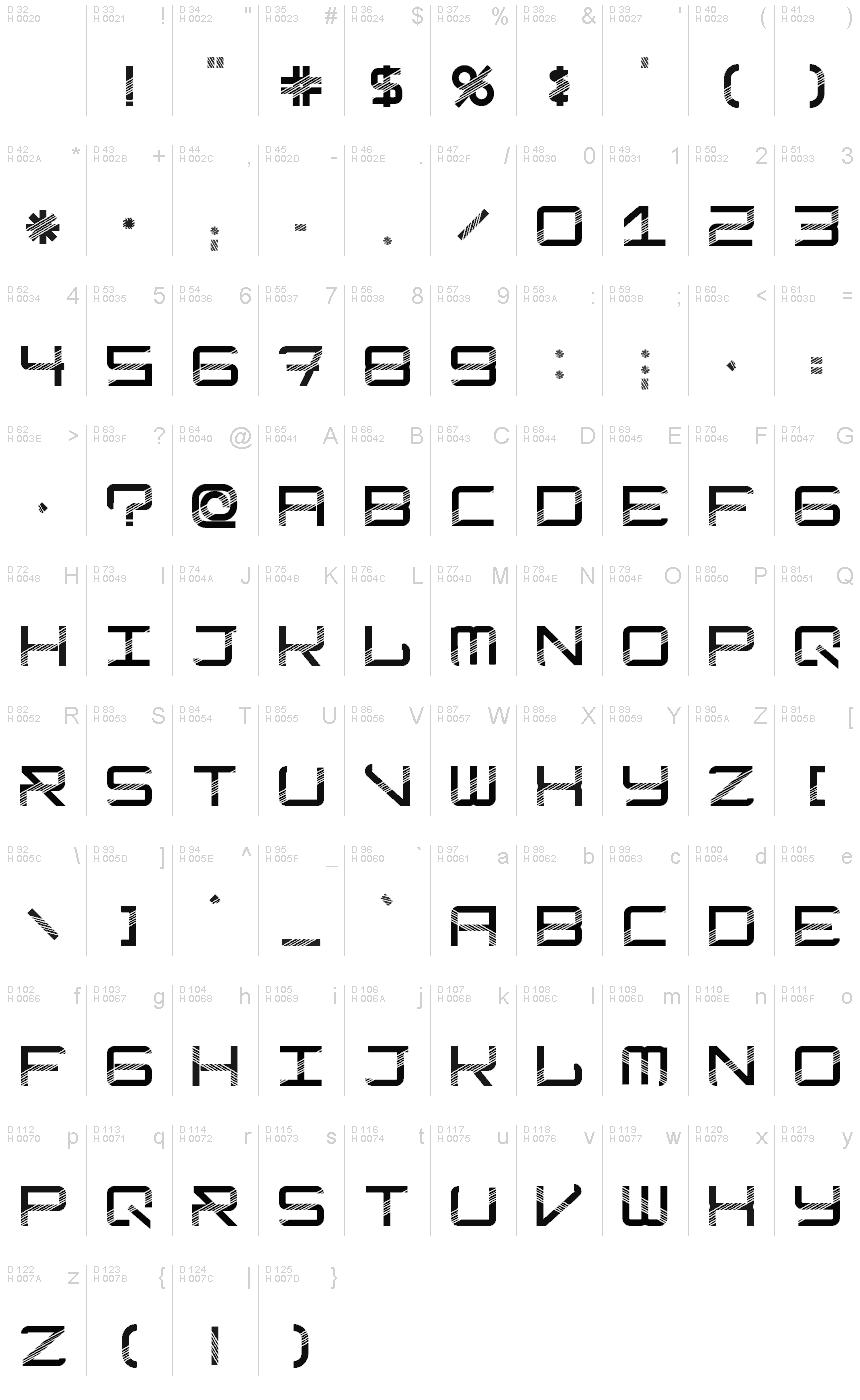
ModernismDisco
Modernism Disco is an eye-catching, techno-inspired display font that exudes a bold, futuristic aesthetic. Designed by Max Infeld of Xerographer Fonts, this expanded typeface boasts a striking geometric structure with sharp, angular forms that evoke a sense of dynamism and modernity.
The font's sleek, minimalist style would lend itself well to a range of design applications, from bold headlines and event branding to product packaging and digital interfaces. Its distinct, contemporary flair makes it a versatile choice for designers seeking to convey a sense of technological innovation, urban sophistication, or retro-futuristic inspiration.